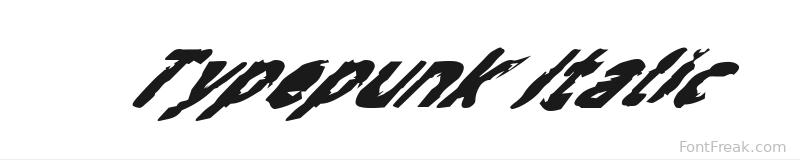
Typepunk Italic
Typepunk Italic is a striking display font designed by GGBot, characterized by its bold, edgy aesthetic that captures the essence of contemporary type design. This italicized typeface is a part of the typepunk category, showcasing a unique blend of artistic flair and legibility. The strokes exhibit a heavy weight with a dynamic contrast, making the characters visually captivating. The spacing is thoughtfully crafted, allowing for easy readability while maintaining a strong visual impact. Decorative elements, such as the slanted letterforms and jagged edges, contribute to its rebellious character, making it a standout choice for various creative projects.
This font is particularly well-suited for use in vibrant and eye-catching applications. It thrives in creative environments, making it ideal for branding elements like logos and posters, as well as for edgy fashion magazines and music album covers. Additionally, Typepunk Italic can add a unique touch to restaurant menus that seek to convey a modern and avant-garde theme. Graphic designers and content creators will find it invaluable for creating memorable social media graphics and promotional materials that demand attention. Small business owners looking to establish a distinct identity will also benefit from the font’s bold presence.
What sets Typepunk Italic apart is its ability to convey personality while remaining versatile for various applications. The combination of its bold strokes and artistic design makes it a perfect choice for anyone looking to make a statement. Whether you’re a graphic designer in search of the perfect typeface for a project or a small business owner aiming to stand out, the Typepunk Italic font free download offers a fresh and engaging option that will elevate your designs.